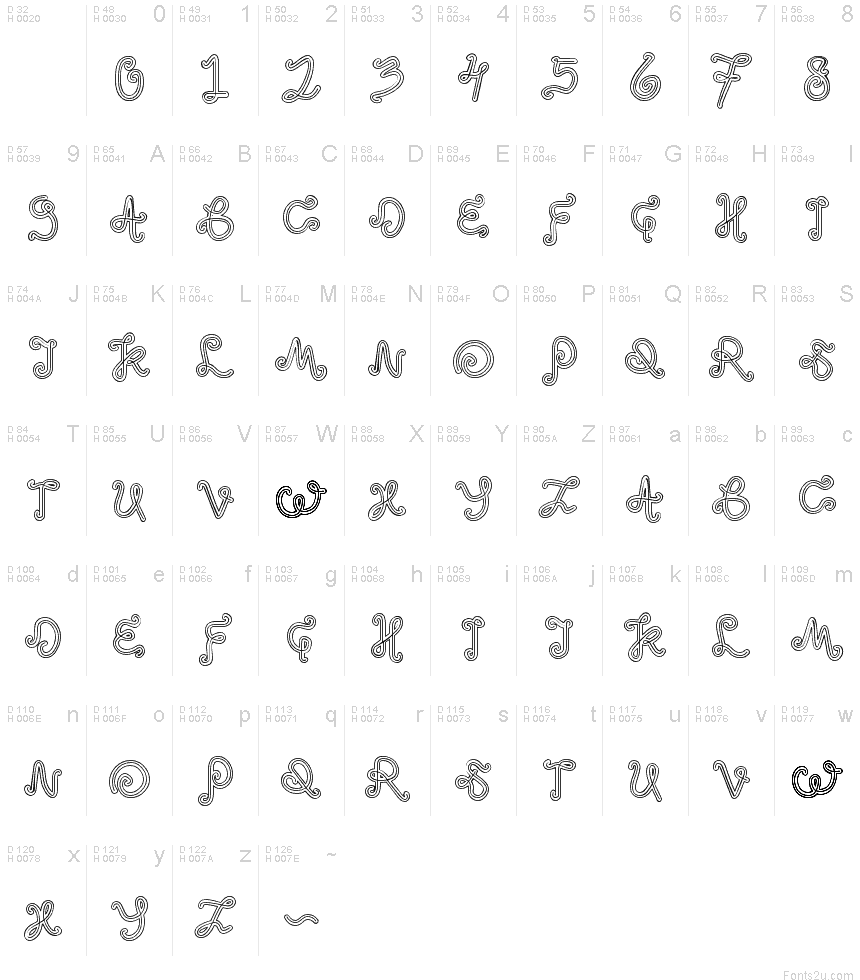
Odd Ethnic by goodmorninc is a free curly outlined display font with elaborate calligraphic construction and an unusually open silhouette. Slender double lines curl into generous spirals, knots, and sweeping joins, making the letters resemble decorative wirework or carefully looped ribbon.
Posters and event graphics gain a theatrical, ornamental title treatment. The looping forms also suit fashion packaging, music merchandise, and craft branding, where the letters can extend into borders or illustrated patterns that echo dance, jewelry, and ornamental metalwork.